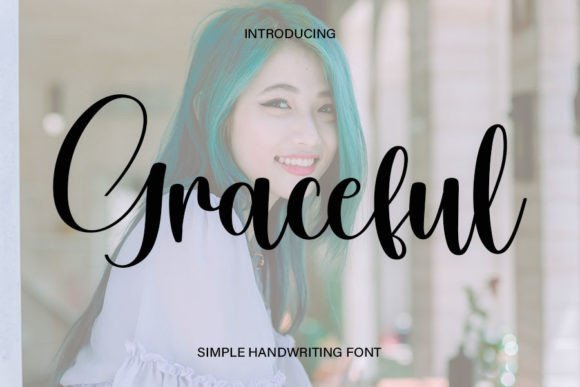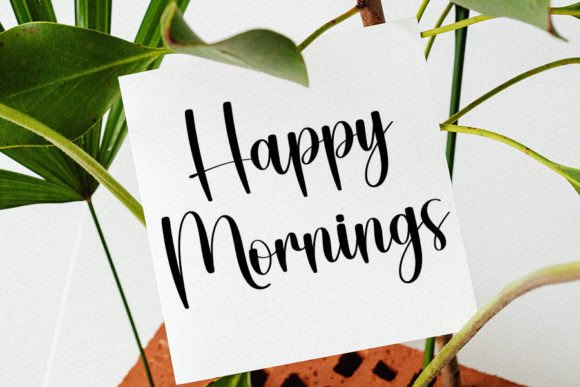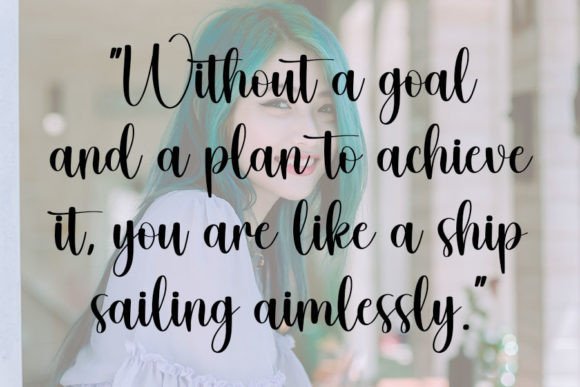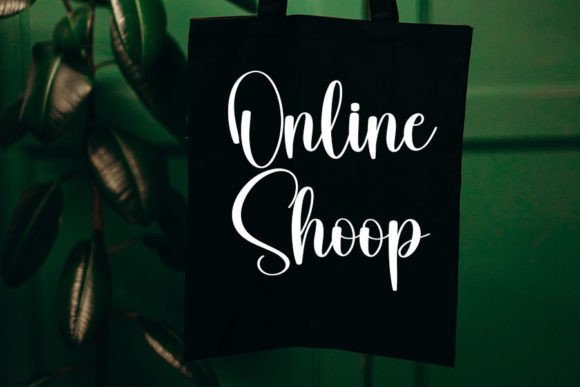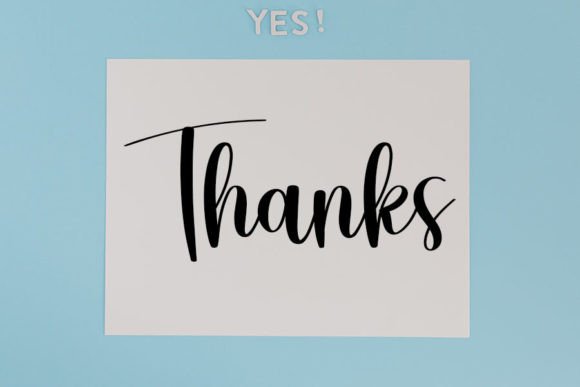
About Graceful Font
Graceful font is a simple and friendly handwritten typeface crafted to add a warm and inviting touch to your creative endeavors. Its clear and natural style makes it perfect for a variety of projects where a personal and approachable look is desired.
Simple and Friendly Handwriting Style
The charm of Graceful font comes from its clean, easy-to-read letters that maintain a casual, handwritten feel. Each character flows smoothly, providing a sense of warmth and authenticity. This font balances simplicity with friendliness, making it an excellent choice for designs that need a human touch.
Versatile Uses of Graceful Font
Graceful font is highly versatile and fits well in many creative scenarios, including:
Craft projects and DIY designs
Digital presentations and social media content
Greeting cards and invitations
Branding materials and marketing campaigns
Its flexibility allows it to shine in both personal and professional applications.
Adding a Personal Touch to Your Designs
Using Graceful font helps bring a natural and welcoming vibe to your work. The handwritten style creates emotional connections with your audience, making your designs more engaging. Whether for casual crafts or formal presentations, this font offers clarity and friendliness in one package.
Summary
In conclusion, Graceful font is a simple and friendly handwritten typeface perfect for crafts, digital design, presentations, and greeting cards. Its clean and inviting style makes it a go-to font for any project.